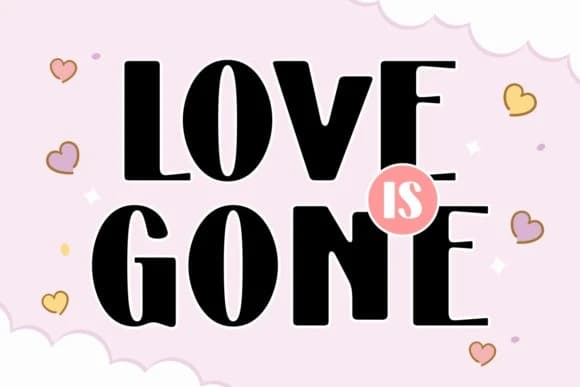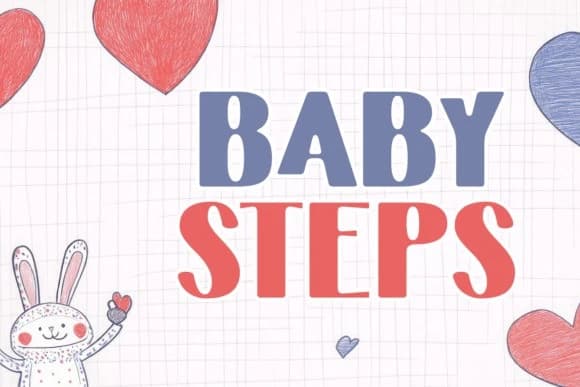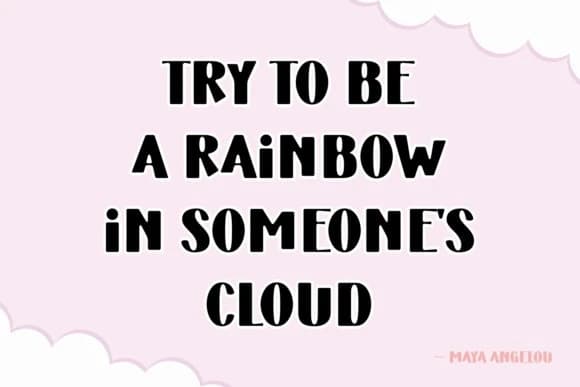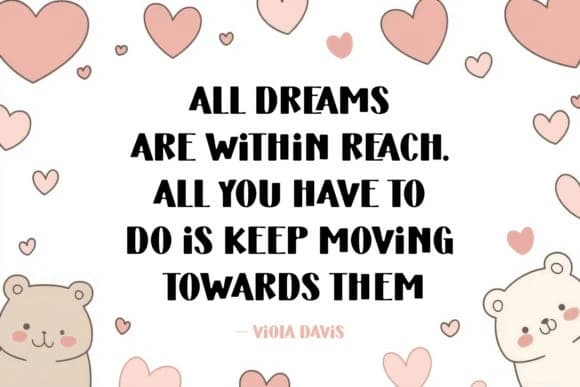
Love Is Gone Font
Love Is Gone Font, a distinctive font that effortlessly blends luscious handwriting and expressive design, perfect for everything from display to headline use. Infused with undeniable charm, it defines the essence of cute, amiable and feminine aesthetics